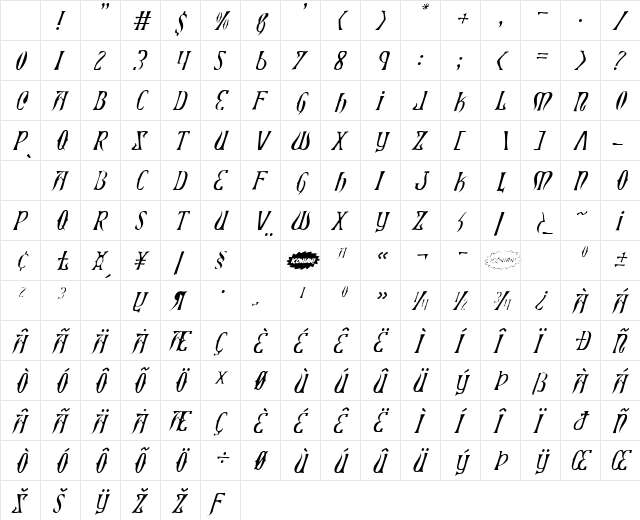
Complete Xiphos Light Italic glyph index. Displaying only characters natively supported by Xiphos Light Italic font.
Xiphos is a composed and adaptable typeface that performs quietly and consistently across a wide range of design contexts. The slanted form adds forward momentum and visual energy. Its slender proportions lend an understated elegance to any composition.
Pro Tip: Use Xiphos for emphasis, pull quotes, and subheadings where its slanted energy can add rhythm to the layout.